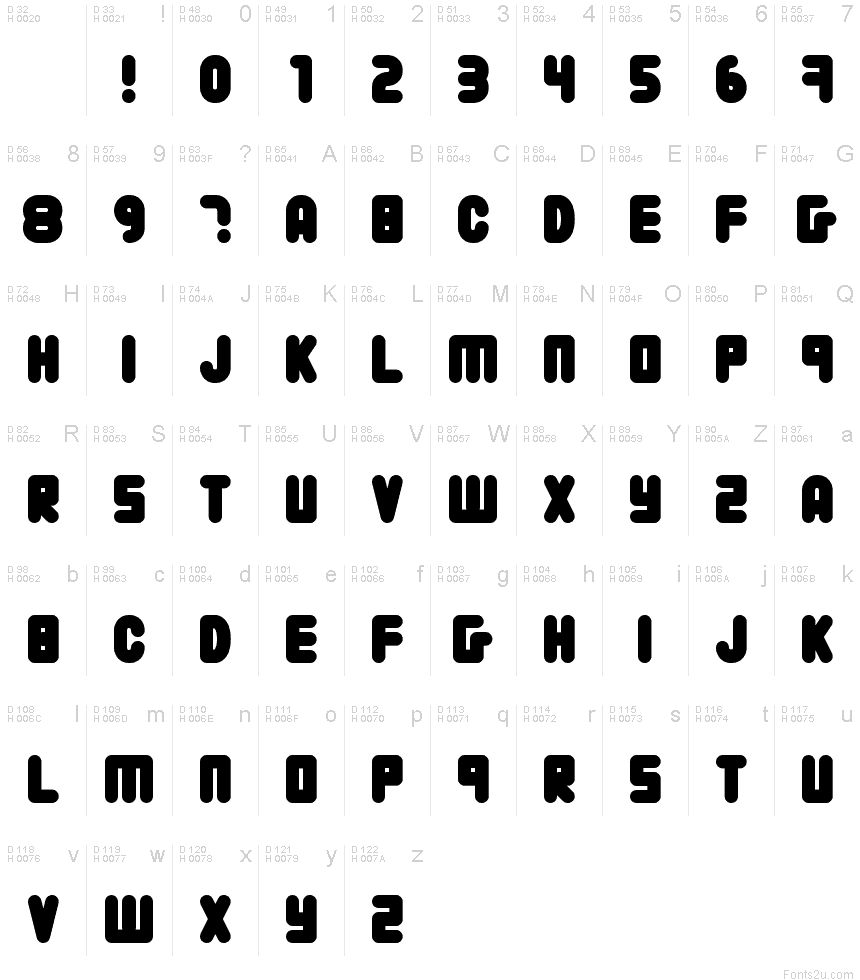
222 03
222 03 font is a free modern display typeface that turns numbers into bold, sculpted symbols. Each digit is built from thick, rounded strokes with sharp internal cuts, so they read like futuristic counters carved from soft rubber. The rhythm is tight and compact, giving sequences of numbers a strong visual block that grabs attention even at a glance.
Using 222 03, your numerals instantly stand out on sports jerseys, race bibs, tech dashboards, posters, tickets, and bold price tags. This free font shines when you need big, legible digits that still feel experimental and offbeat. For extended text, pair it with a simple geometric sans in smaller sizes so 222 03 can handle the hero moments.